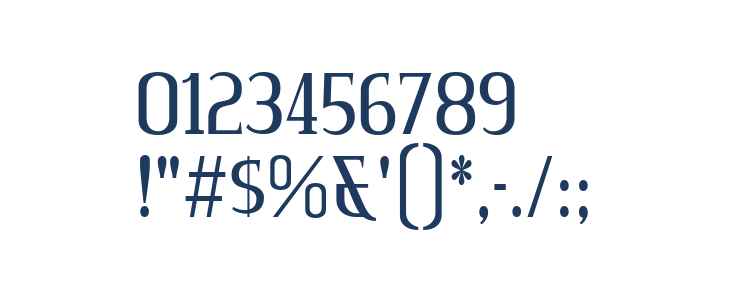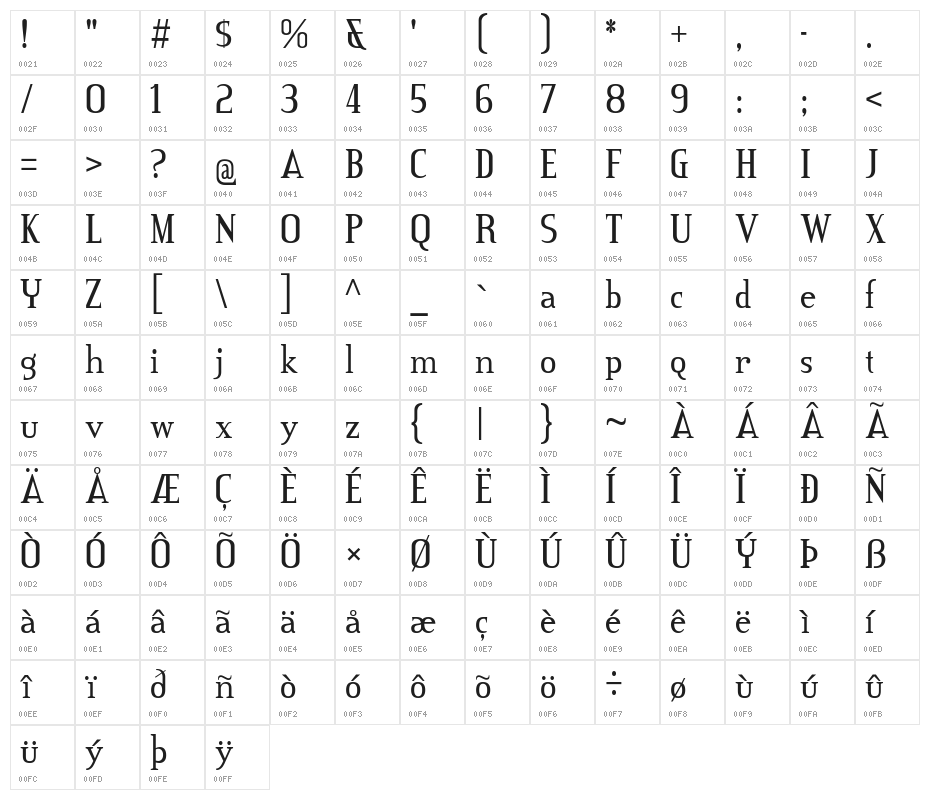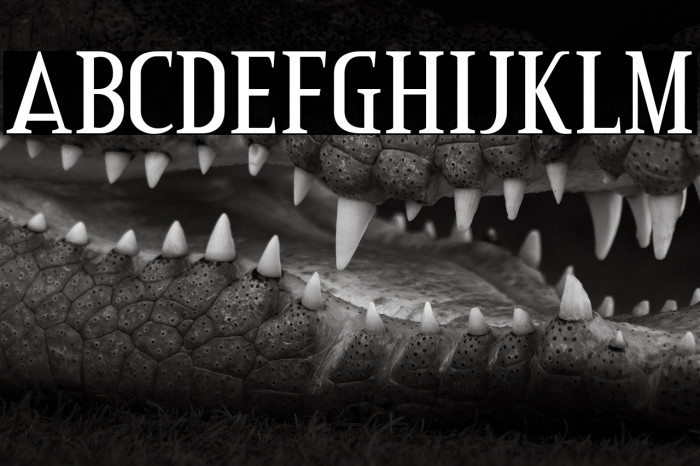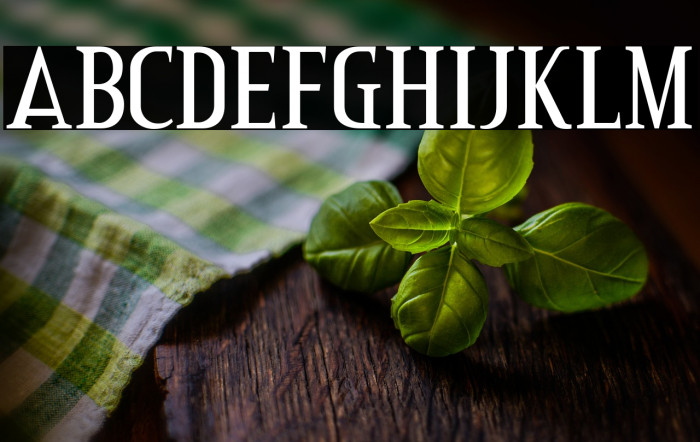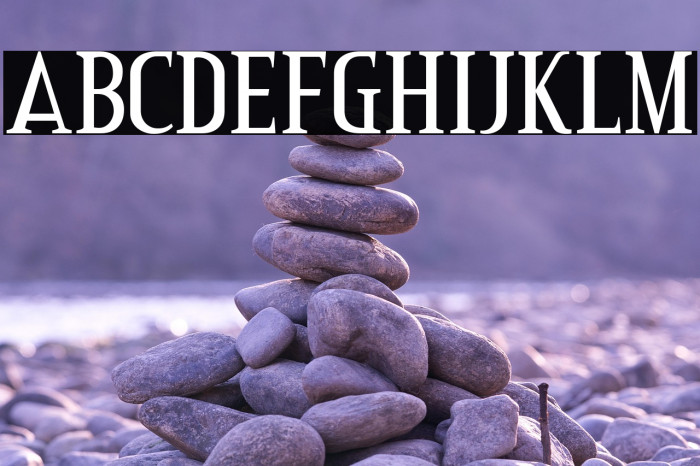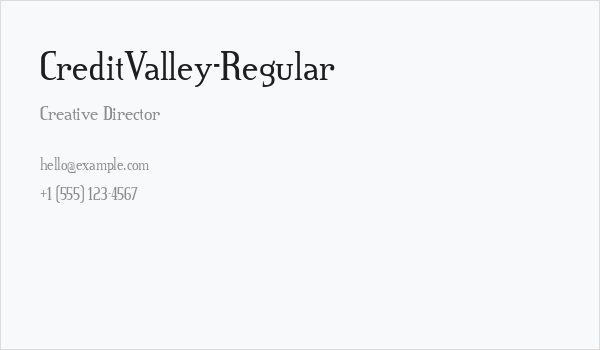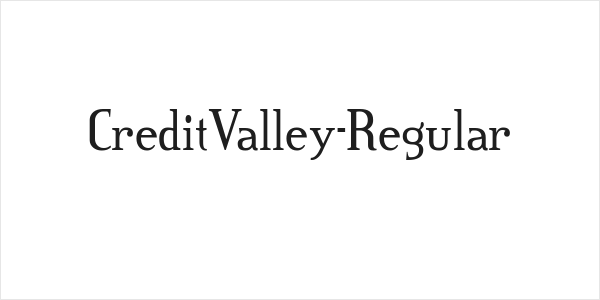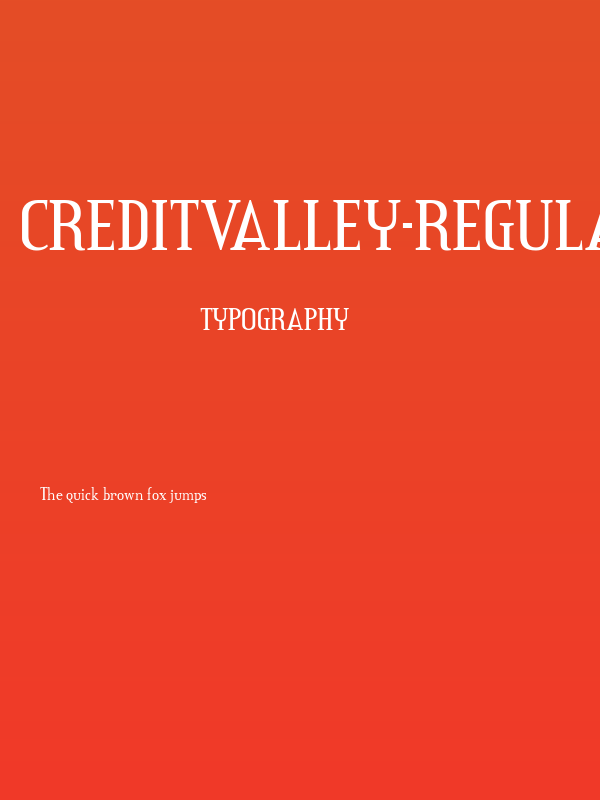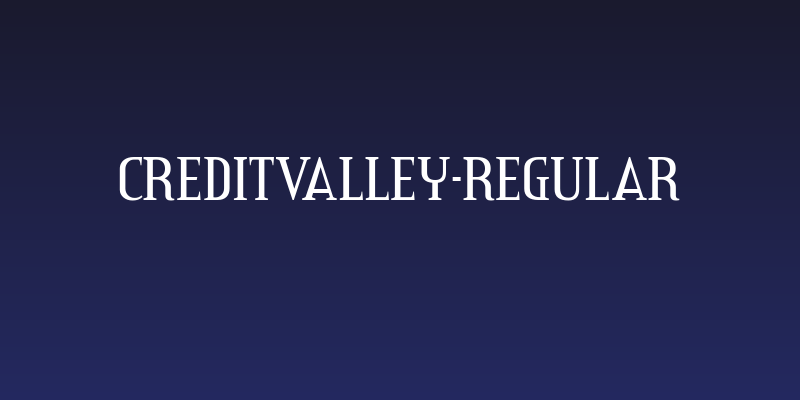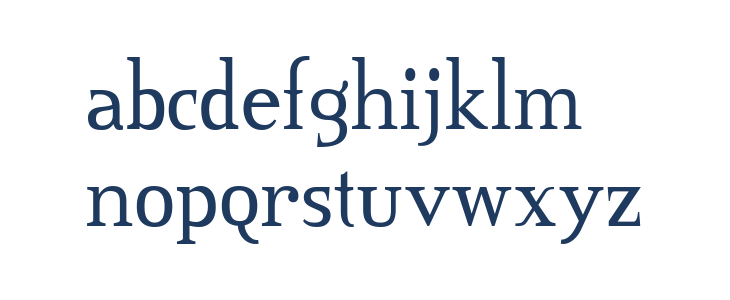
CreditValley-Regular Font
CreditValley-Regular Description
This font features a classic serif style with a modern twist, characterized by its elegant and slightly elongated serifs. The uppercase letters are bold and commanding, while the lowercase letters maintain a refined and balanced appearance. The numerals are distinct and clear, making them easily readable. Special characters are designed with a unique flair, adding to the font's versatility. The overall design is sophisticated, making it suitable for a variety of applications where a touch of elegance is desired.
| Proposed Projects | Ideal for editorial design, book covers, branding, and formal invitations. |